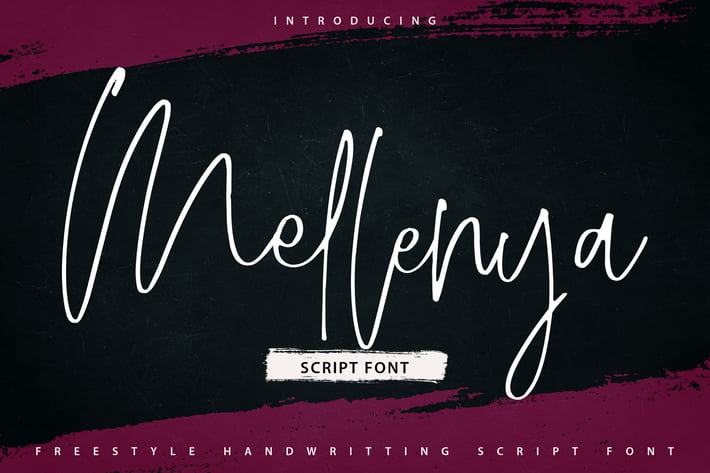
Mellenya | Handwriting Script Font
Mellenya | Handwriting Script Font with a calligraphy style, So beautiful on invitation like greeting cards, branding materials, business cards, quotes, posters, and more!